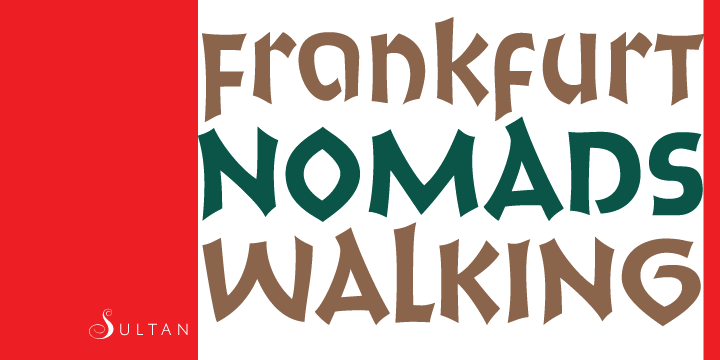
Sultan is a display font published by Canada Type.
Sultan is a revival and expansion of a 1954 Matrin Kausche typeface called Mosaik. This design highlights the unmistakable Arabic/Moorish calligraphy influence on Celtic lettering, by way of the highly active Andalusian culture from the ninth century until the crusades in the early eleventh century.
Although Celtic lettering evolved on its own and prompted different calligraphic styles after the crusades, elements of the Arabic influence survived with it, its appeal remaining evident to this very day. For instance, this kind of lettering is very similar to the one Louis Tiffany used to make the most recognizable athletic insignia in North America - the New York Yankees logo, which is now over 110 years old, and has inspired hundreds of spin-offs in many athletic and non-athletic fields all over the world.
The original character set made by Kausche was quite minimal, consisting of only numerals and uppercase letters along with a few alternates. But in this digital version the set has been considerably expanded into uppercase, lowercase, numerals, punctuation, a complete set of accented characters, and more than 15 alternate letters built into the font.
Sultan is a great font choice particularly for design contexts of fantasy, middle ages legend, mystical and new age content, pirate literature, and Irish history. But it is also an excellent all-purpose display and poster font in general.